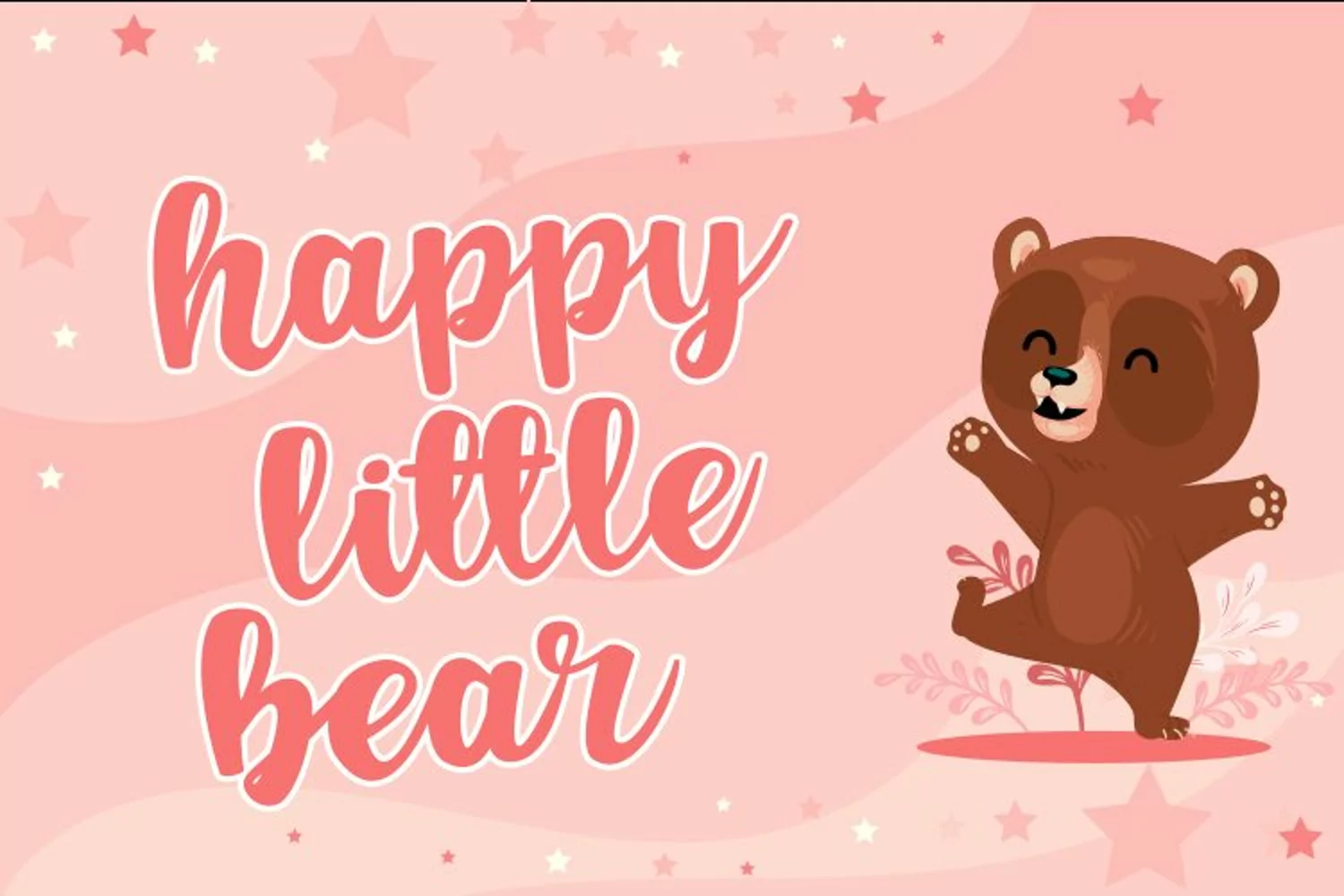
Jafeline Hand is Handwritten Script font. It has a elegant, and modern look which can be used for logos, branding, invitations, stationary, wedding designs, social media posts, and every other design.